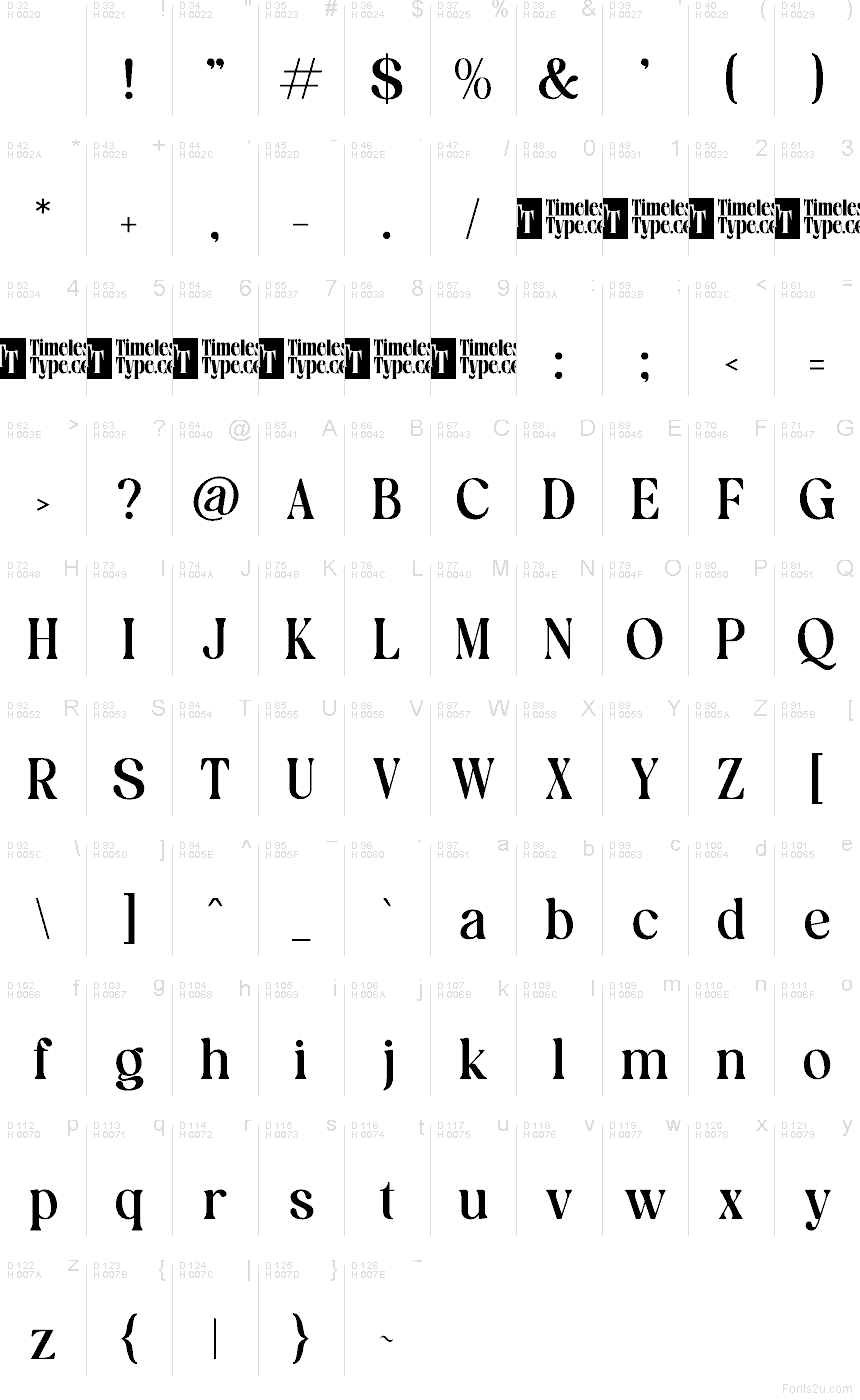
Bonfire Glisten by TimelessType.co is a free high-contrast modern serif with a polished, fashion-leaning voice. The letters mix tall, graceful curves with razor-thin joins and a few softly rounded details, so the font feels elegant without turning stiff.
It fits naturally in magazine mastheads, beauty packaging, boutique branding, invitation titles, and editorial cover lines, where those sweeping curves and crisp contrast carry the look with very few words. As a free font, it also suits monograms and short title cards, especially when you want something refined that still feels a little warm and human.